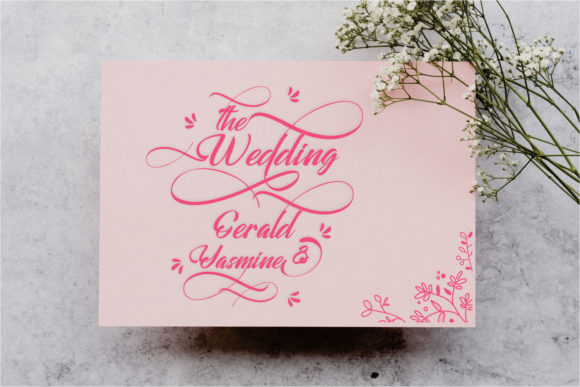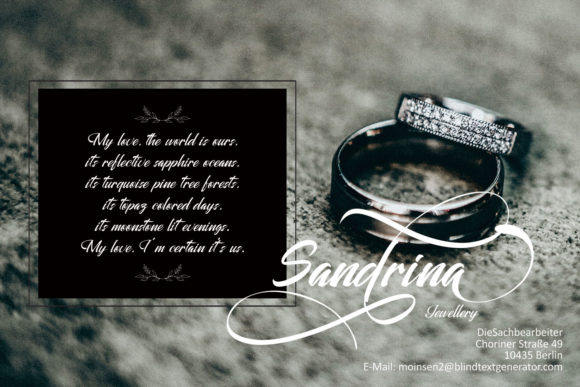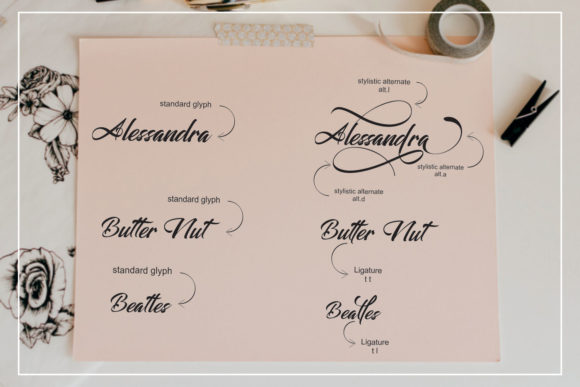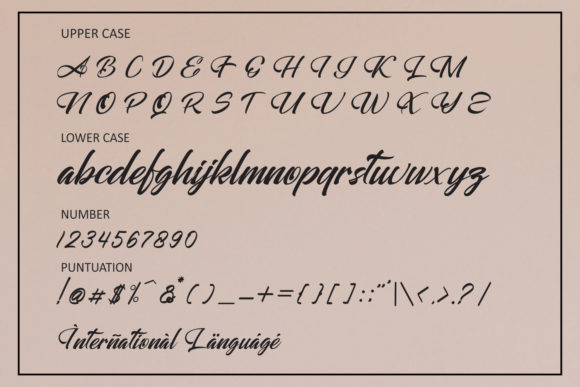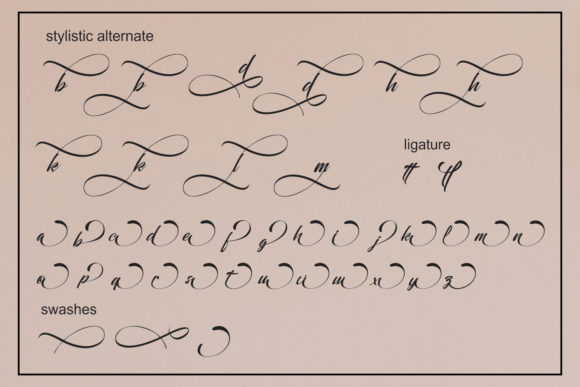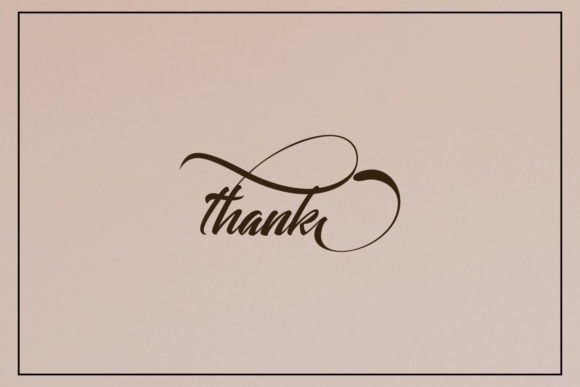
Introducing Alessandra Font: The Perfect Handwritten Style for Romantic Designs
Are you a designer or crafter looking for a font that exudes romance and elegance? Look no further than Alessandra Font, a beautiful handwritten style font that’s perfect for a variety of design projects. In this article, we’ll explore the features and benefits of Alessandra Font, and show you how it can elevate your designs to the next level.
What is Alessandra Font?
Alessandra Font is a stunning handwritten style font that’s designed to add a touch of romance and sophistication to your designs. With its flowing curves and elegant lines, Alessandra Font is perfect for creating beautiful and eye-catching designs that will leave a lasting impression.
Perfect for Product Logos and Branding
Alessandra Font is an excellent choice for product logos, product names, and product branding. Its unique and stylish design makes it stand out from other fonts, ensuring that your product will be remembered and recognized. Whether you’re launching a new product or rebranding an existing one, Alessandra Font is a great choice.
Romanic and Elegant: Perfect for Wedding Designs
Alessandra Font is particularly well-suited for businesses that need a touch of romantic style, such as wedding invitation cards, wedding organizers, beauty salons, and wedding dress businesses. Its elegant design and flowing curves evoke a sense of romance and sophistication, making it perfect for creating beautiful wedding designs.
Wedding Magazines and Brochures
Alessandra Font is also an excellent choice for wedding magazines and brochures. Its stylish design and elegant lines make it perfect for creating beautiful and eye-catching headlines, titles, and text. Whether you’re creating a wedding magazine or brochure, Alessandra Font will add a touch of romance and sophistication to your design.
Why Choose Alessandra Font?
So why choose Alessandra Font over other fonts? Here are just a few reasons:
- Unique and stylish design: Alessandra Font has a unique and stylish design that will make your designs stand out from the crowd.
- Elegant and romantic: Alessandra Font is perfect for creating romantic and elegant designs that will leave a lasting impression.
- Versatile: Alessandra Font can be used for a variety of design projects, from product logos and branding to wedding designs and magazines.
- Easy to read: Alessandra Font is easy to read, making it perfect for body text and headlines.
How to Use Alessandra Font
Here are a few tips and tricks for getting the most out of Alessandra Font:
- Use it sparingly: Alessandra Font is a bold font, so use it sparingly to create emphasis and draw attention to important text.
- Pair it with other fonts: Alessandra Font pairs well with other fonts, such as sans-serif fonts. Experiment with different font combinations to create a unique look.
- Experiment with colors: Alessandra Font looks great in a variety of colors, from bold and bright to soft and pastel. Experiment with different colors to find the perfect look for your design.
Alessandra Font is a beautiful handwritten style font that’s perfect for designers and crafters looking to add a touch of romance and elegance to their designs. With its unique and stylish design, elegant lines, and versatility, Alessandra Font is an excellent choice for a variety of design projects. Whether you’re creating product logos and branding, wedding designs, or magazines, Alessandra Font is sure to impress.